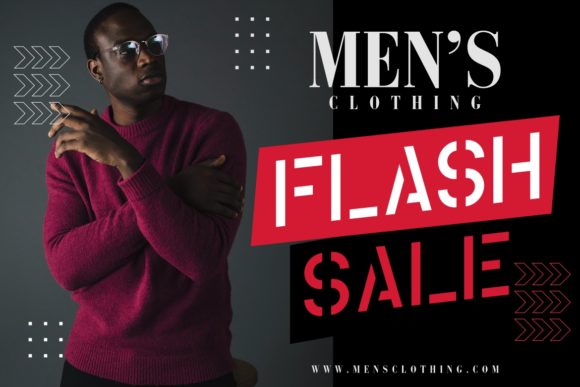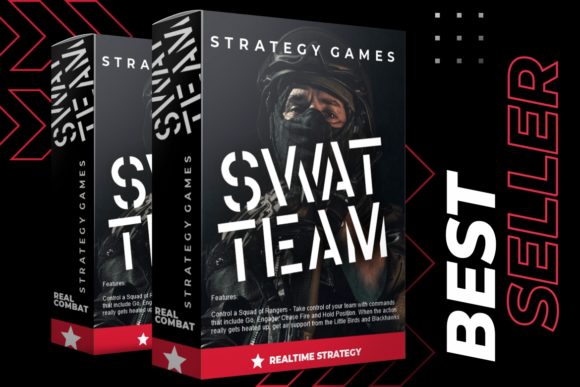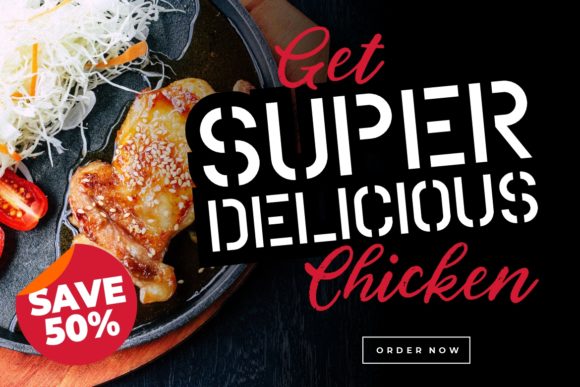
Coutline Stencil Typeface Font
Coutline is an all caps sans serif font inspired by military design and urban graffiti.Coutline is perfect for branding projects, logo, wedding designs, social media posts, advertisements, product packaging, product designs, label, photography, watermark, invitation, stationery and more.This font is PUA encoded which means you can access all of the glyphs and swashes with ease!